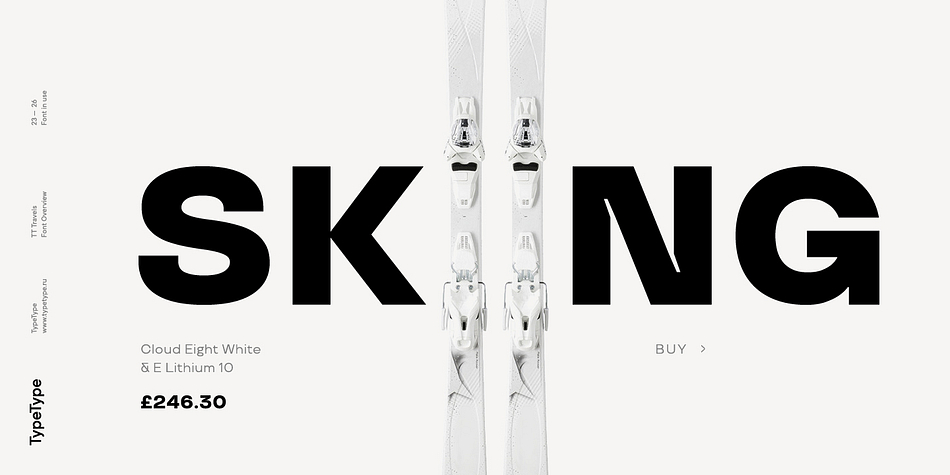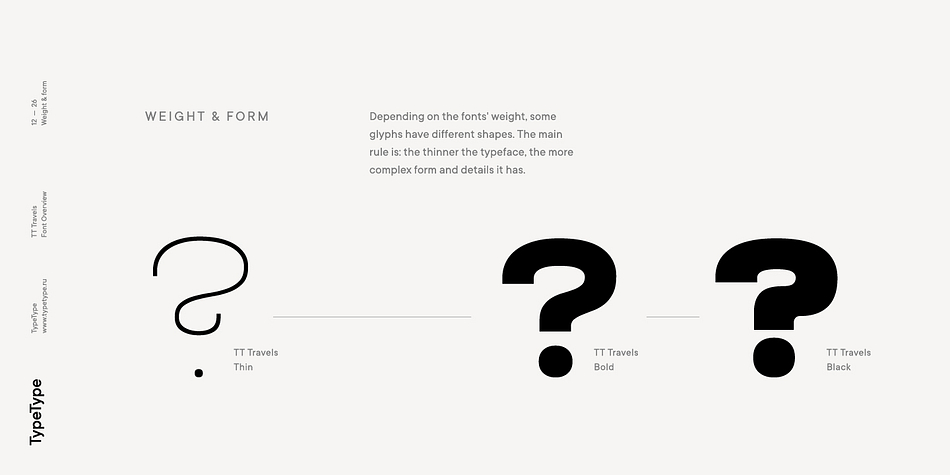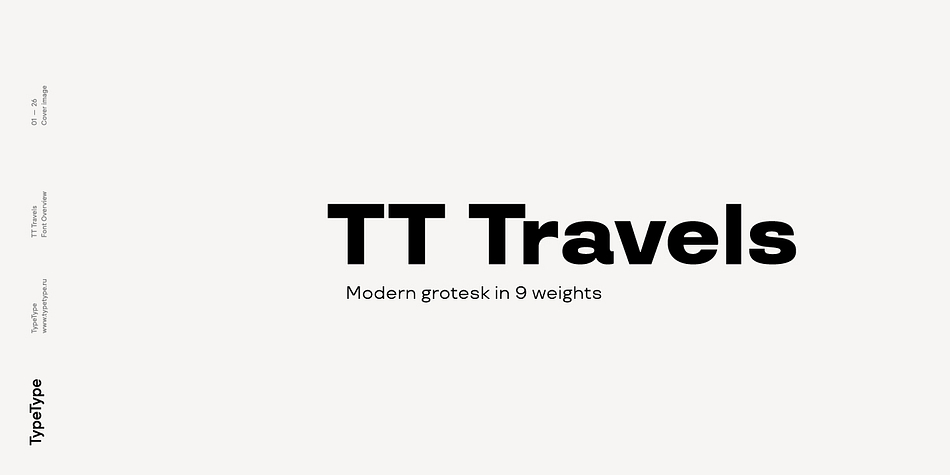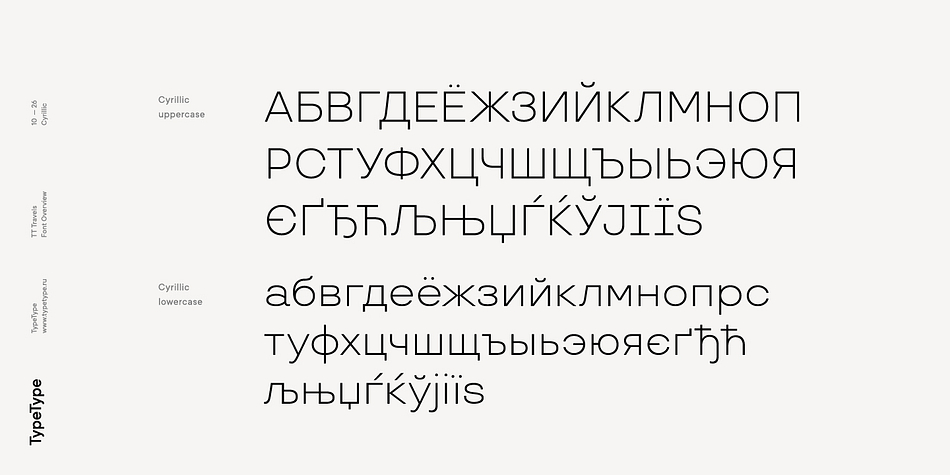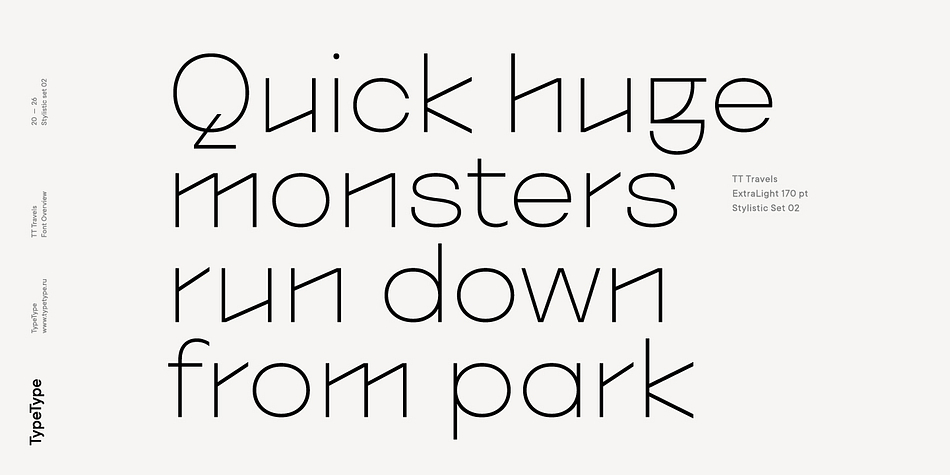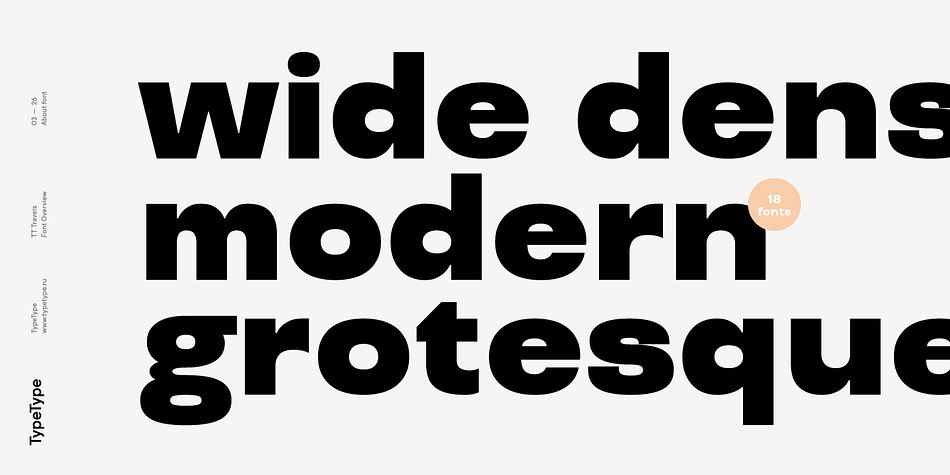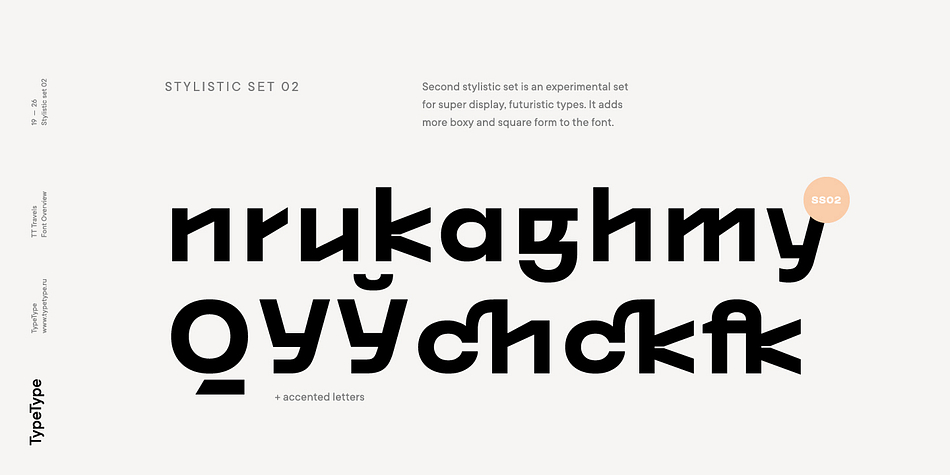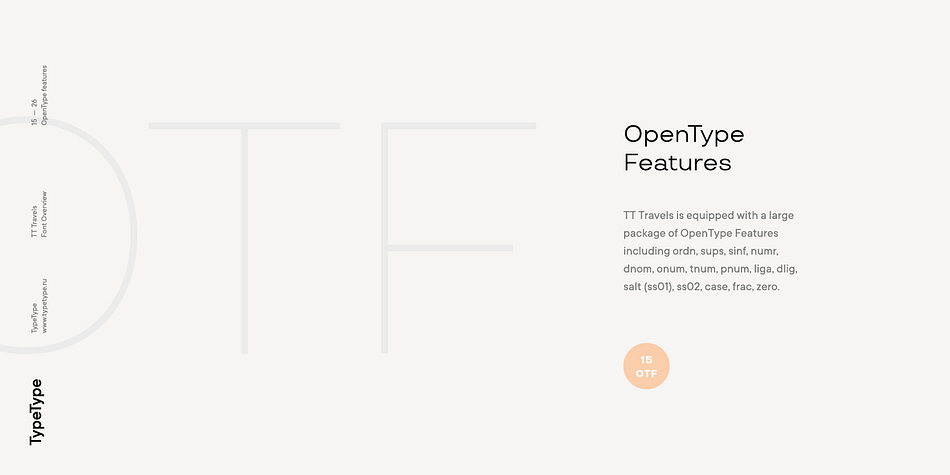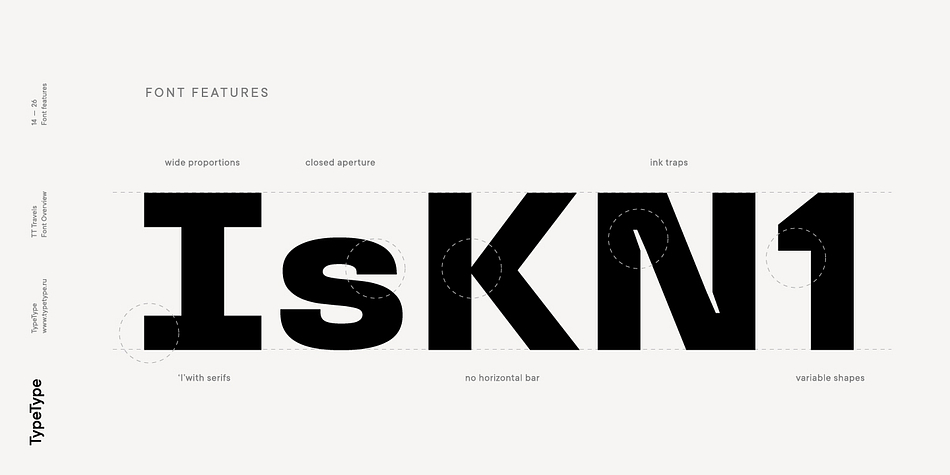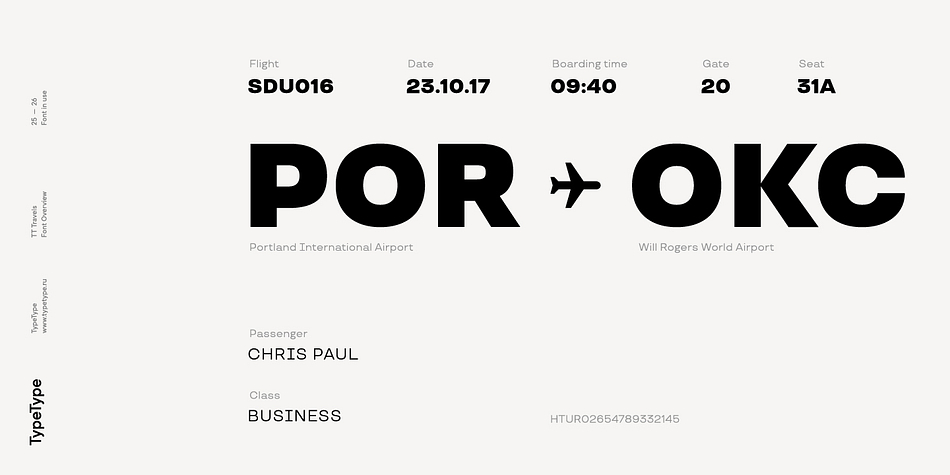
TT Travels is a sans serif font family. This typeface has eighteen styles and was published by Typetype.
TT Travels is a geometric grotesque with wide proportions and peculiar shapes of circles and brackets. TT Travels incorporates two stylistic sets which add completely different characters to the type family. The first set ss01 (aka salt) makes the font more humanistic, thanks to the ductal and smooth design of the characters defining the style. And if you want to work with the futuristic version of TT Travels, we recommend that you enable the second set (ss02). In this set, most of the characters defining the style change to characters possessing experimental forms of graphemes.
For the convenience of the TT Travels font family use and for working within a complex text hierarchy, we’ve created 9 weights (Thin, X-Light, Light, Regular, Medium, DemiBold, Bold, X-Bold, Black) and added 9 true Italics. TT Travels also implements standard and discretionary ligatures, oldstyle figures, slashed zero, and much more. The full list of OpenType features used in TT Travels is: ordn, sups, sinf, numr, dnom, onum, tnum, pnum, liga, dlig, salt, ss01, ss02, case, frac, zero.